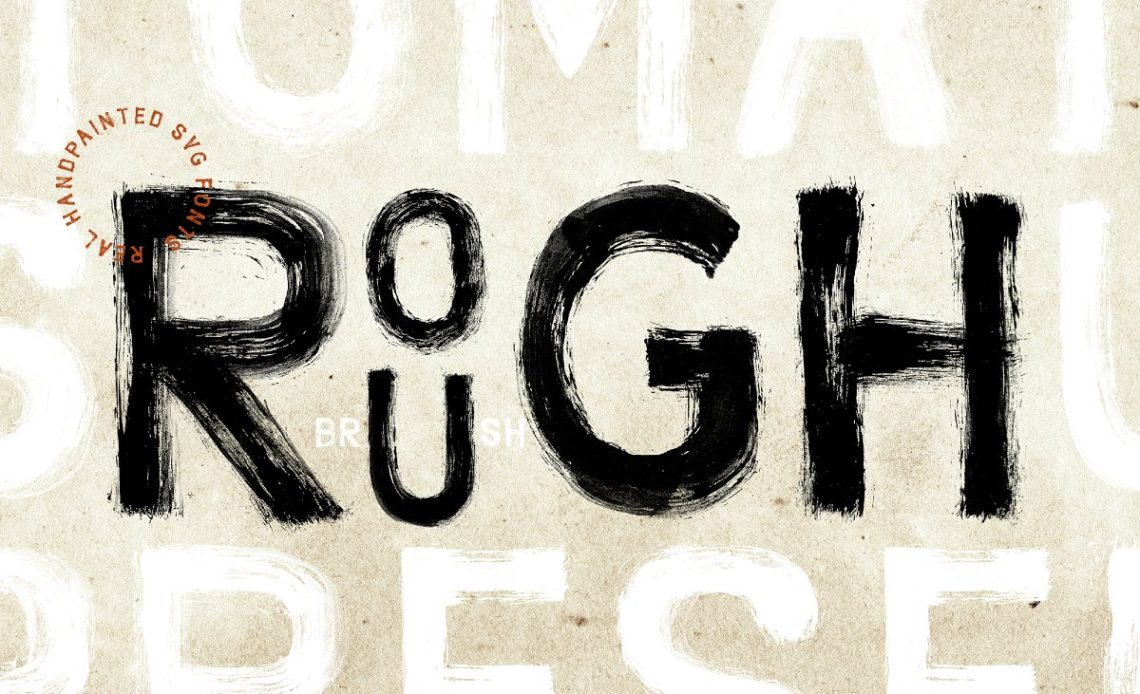
Looking for the best fonts for horror books? Look no further than Handpainted Rough Brush SVG Fonts! Created by Tomat Studio, these fonts will take your designs to the next level with their pure handpainted texture and rough, grunge effect.
Unlike typical Photoshop brushes, Handpainted Rough Brush SVG Fonts were created using real brushes, giving them a unique and authentic feel. Whether you're working on a realistic grunge design or a modern piece, these fonts are the perfect choice to bring your vision to life.